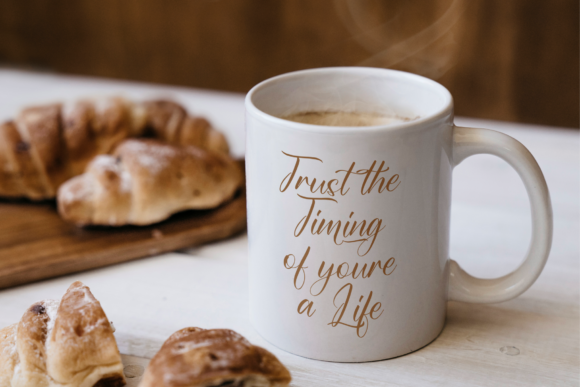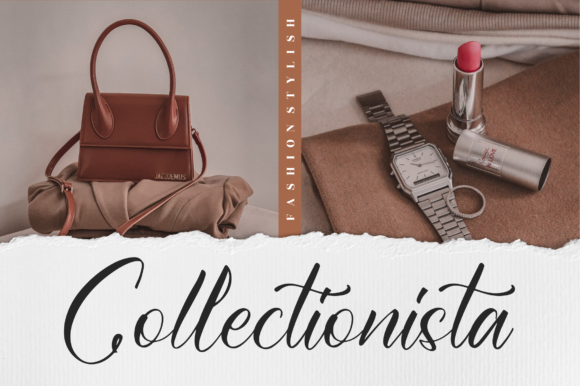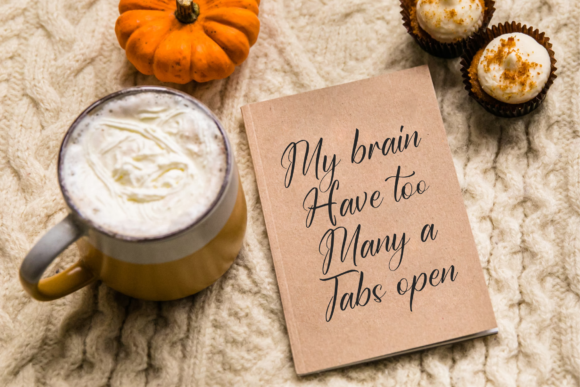
Introduction to Premiere California Font
Premiere California is a lovely and timeless handwritten font.
It is the best choice for creating eye catching logos, branding and quotes This font is PUA encoded which means you can access all of the glyphs and swashes with ease.
Key Features of Premiere California Font
Why Choose Premiere California Font?
Premiere California Font offers exceptional quality and versatility, making it a valuable addition to your design toolkit. Whether you’re creating for personal projects or commercial use, Premiere California Font delivers professional results.